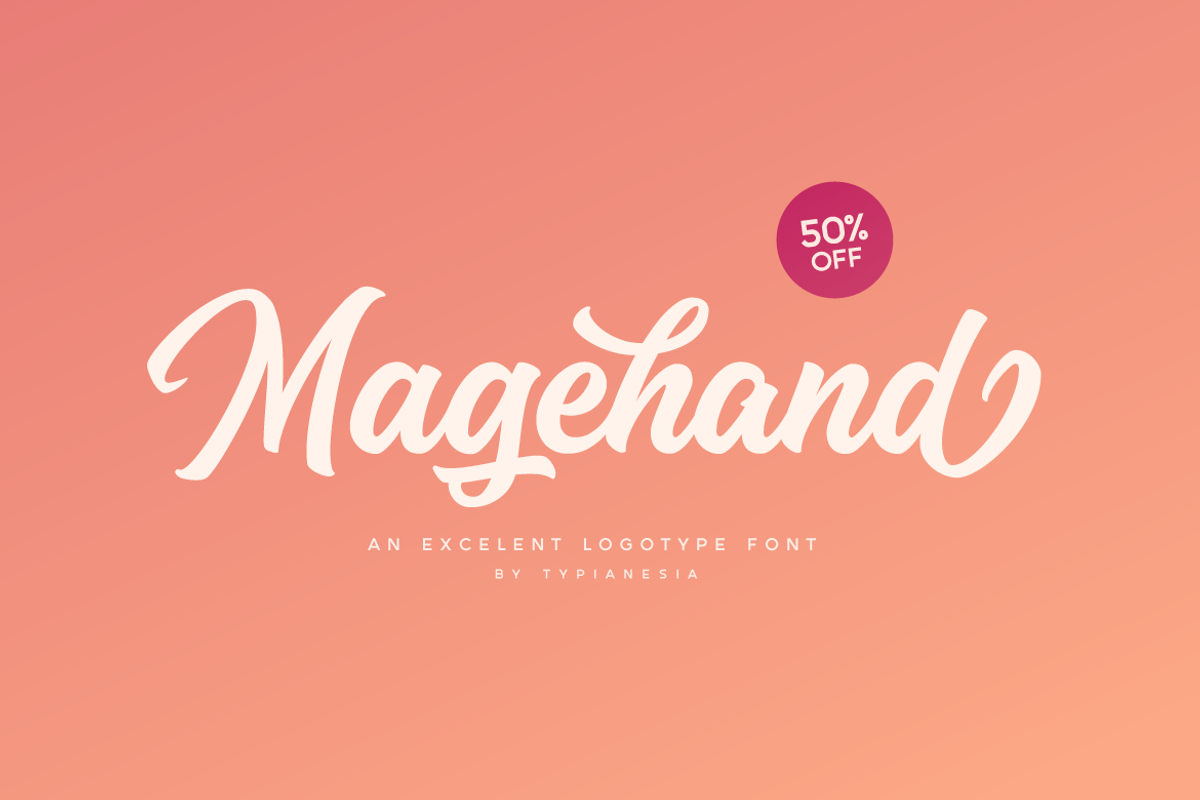
Magehand Logo Font Free Download
Cast a visual spell with the Magehand Logo Font Free Download — a bold and enchanting typeface crafted for fantasy-inspired branding and gaming aesthetics. With its magical curves, sharp edges, and arcane energy, Magehand is perfect for RPG titles, fantasy book covers, streaming overlays, wizard-themed merchandise, and mystical logos that need to stand out.
This font embodies the power of ancient runes with a modern twist, giving your design both presence and personality. Whether you’re creating content for a Dungeons & Dragons campaign, a game development project, or a magical brand identity, Magehand delivers style with a spark of sorcery.